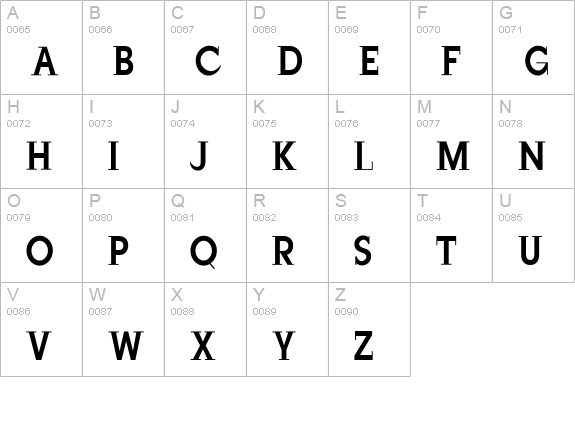
JustOldFashion-Condensed Font Details
JustOldFashion-Condensed is a distinctive, condensed-width variant in the JustOldFashion typeface family \xE2\x80\x94 well suited to design and typography projects.
JustOldFashion-Condensed is a timeless font that exudes elegance and sophistication. With its classic letterforms and condensed design, this font effortlessly captures the essence of old-fashioned charm. The clean lines and graceful curves of each character make it ideal for various design projects, from vintage-inspired logos to elegant invitations. What sets JustOldFashion-Condensed apart is its versatility. It can be used in both small and large sizes without sacrificing legibility, making it perfect for headlines, titles, and body text. Whether you're designing a wedding invitation or creating a magazine layout, this font will add a touch of class to any project. One of the best features of JustOldFashion-Condensed is that it is freely available to download at FontsMarket.com. This means that you can easily access this stunning font without any cost, making it a valuable asset for designers on a budget. Its availability for free makes it even more appealing, as it allows you to enhance your designs without breaking the bank. With JustOldFashion-Condensed, you can confidently express your creativity and bring a touch of vintage beauty to your designs. Its timeless appeal and freely available download make it a must-have font for any designer looking to add a touch of old-fashioned elegance to their projects. So why wait? Download JustOldFashion-Condensed today and let your designs stand out with its distinctive charm.